Finding the right lettering fonts for logo design is harder than it looks. A logo font has to carry personality, but it also has to survive real use: small profile images, packaging labels, business cards, website headers, stickers, signs, and social media templates.
That is where lettering fonts can be useful. They give a wordmark a more custom, drawn-by-hand feeling without forcing you to start every logo from scratch. The trick is choosing a font that has enough character to feel memorable, but not so much decoration that the brand name becomes hard to read.
Below are 17 lettering fonts that fit different logo moods: boutique, vintage, playful, handmade, editorial, casual, and bold. I would not use all of them for the same kind of brand, and that is the point. A bakery logo needs different rhythm than a tattoo studio, a kids’ brand, or a premium product label.
- Best playful option: Kinder Someone Duo
- Best vintage option: Vintage Serenade
- Best boutique option: Maddison
- Best product-label option: Vintage Market
- Best elegant script option: Roselya Script Font
How I Picked These
I compared these lettering fonts by wordmark readability, spacing, small-size performance, visual personality, one-color usability, pairing flexibility, logo customization potential, and how well each style can move from a polished mockup into real business cards, labels, packaging, social avatars, signage, and website headers.
17 Best Lettering Fonts for Professional Logo Design
1. Kinder Someone Duo
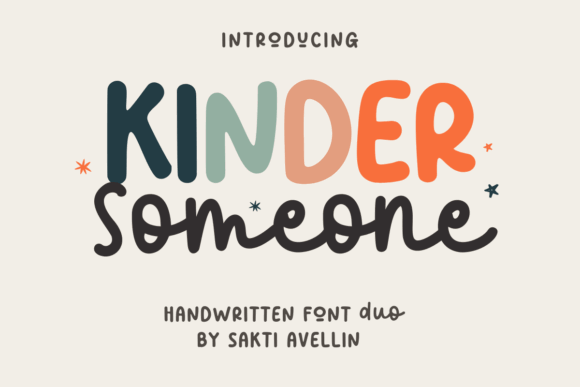
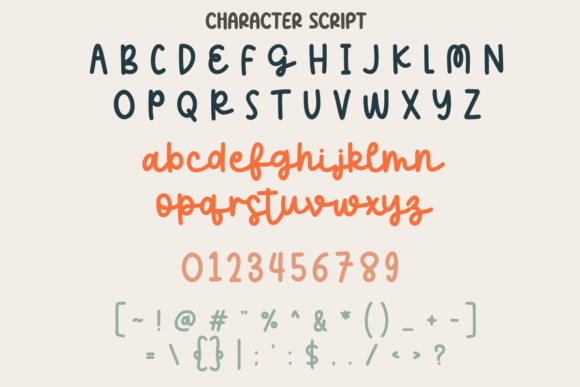
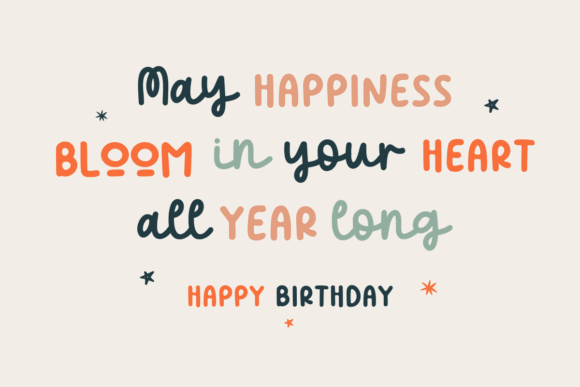
Kinder Someone Duo has the kind of friendly display personality that can make a logo feel approachable right away. It leans more playful than corporate, so I would look at it for creative studios, handmade shops, kids’ labels, casual lifestyle brands, or cheerful packaging.
The “duo” angle is useful for logos because it gives you more visual range. When a brand name needs contrast between the main word and a smaller supporting word, a paired font system can make the layout feel more intentional. This is especially helpful for badge-style logos, sticker labels, and small product brands that need a lot of charm without looking messy.
I would be careful with very serious professional services here. The style has warmth, but that same warmth may feel too informal for legal, finance, or technical brands.
Best for: playful logos, handmade shops, kids’ brands
Key features: display style, friendly lettering, duo font system
2. Vintage Serenade
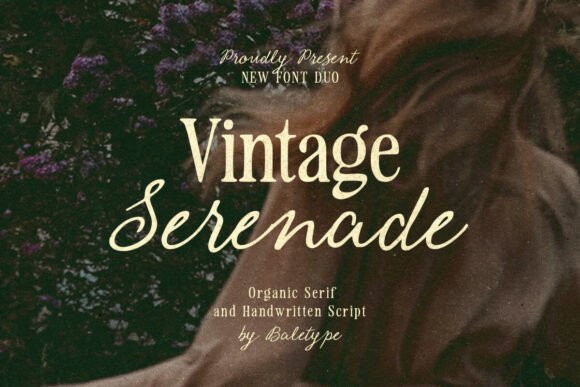
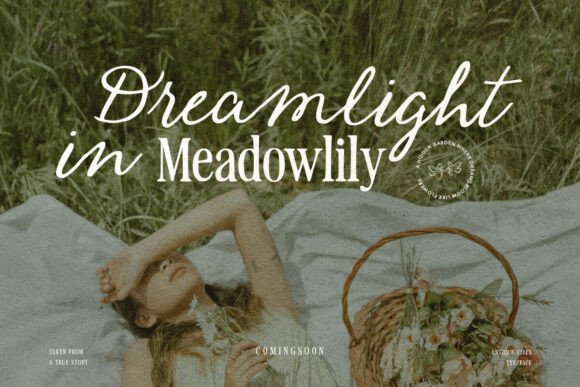
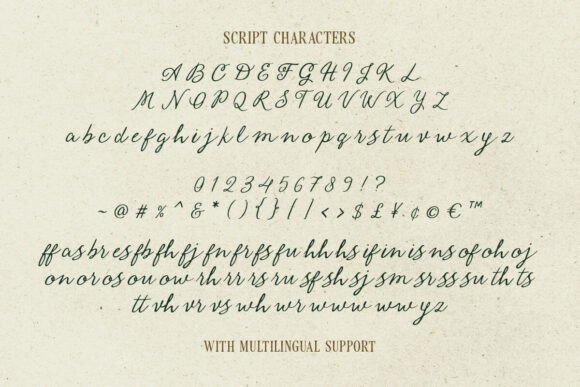
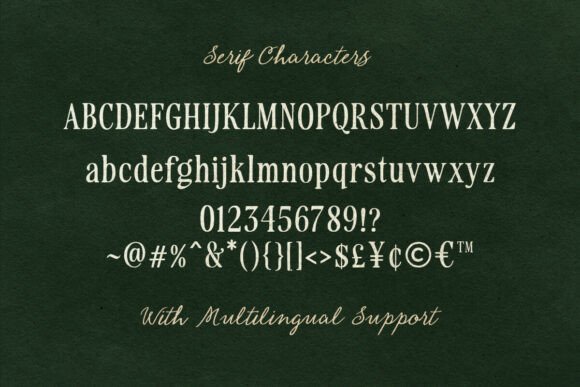
Vintage Serenade is a better fit when the logo needs nostalgia without feeling dusty. The name already points toward a vintage mood, and visually this kind of lettering style works nicely for coffee packaging, retro boutiques, handmade goods, barbershop-inspired branding, labels, and merch.
What I like about vintage lettering fonts is that they often carry built-in structure. They can sit inside badges, arcs, labels, and framed lockups without needing too many extra ornaments. That makes the logo process faster, especially if you are building a full brand kit around a wordmark.
The main thing to watch is detail. Vintage lettering can lose clarity if the brand name is long or if the logo has to be embroidered, cut, or printed small. Test the wordmark in black and white before adding texture.
Best for: vintage labels, coffee brands, retro merch
Key features: nostalgic tone, display lettering, logo-friendly mood
3. Maddison
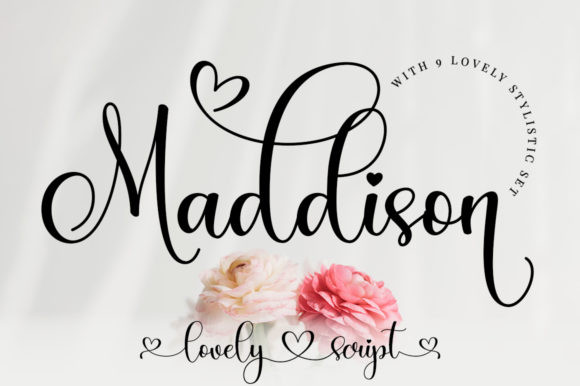
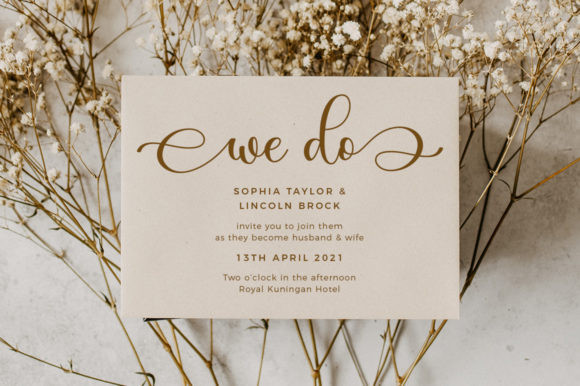
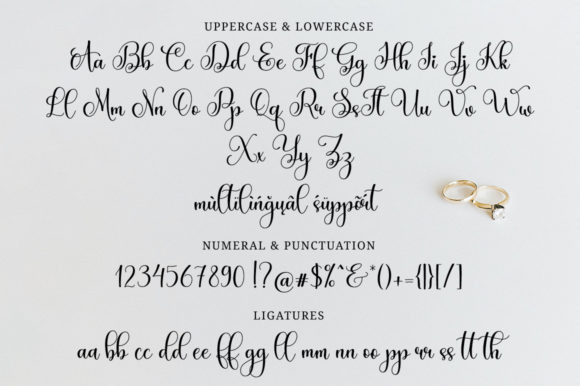
Maddison feels more polished and brandable than overly decorative. It has a modern lettering direction that can work for boutique logos, personal brands, beauty studios, lifestyle products, and elegant packaging.
This is the kind of font I would test when a client wants something “handwritten,” but not childish or rough. It can give a logo a personal tone while still feeling composed. That balance matters in beauty, wellness, coaching, photography, and boutique retail, where the brand needs warmth but still has to look trustworthy.
For logo use, I would pair Maddison with a quiet sans serif and keep the layout clean. Too many flourishes, icons, and taglines around a script-style logo can make it feel crowded fast.
Best for: boutique logos, beauty brands, personal branding
Key features: modern lettering, soft identity feel, polished tone
4. Designer
Designer is a straightforward pick for brands that want a creative look without going too ornamental. It has a name that fits the category, but more importantly, this style of lettering can suit studio branding, portfolio marks, design templates, editorial graphics, and modern small-business logos.
For professional logo design, I would use this kind of font when the brand wants to look creative but not overly romantic. Some lettering fonts lean hard into wedding, beauty, or feminine branding. Designer feels more open-ended, which makes it easier to adapt across different industries.
The danger is making the layout too generic. To make a logo feel more custom, adjust spacing, create a simple ligature-style moment, or pair the wordmark with a sharp symbol.
Best for: creative studios, portfolio logos, modern brands
Key features: clean lettering mood, adaptable style, display use
License: commercial use via Creative Fabrica access
5. Handlettering Fonts Collection
Handlettering Fonts Collection is the practical option in this list. Instead of one narrow style, a collection gives you more directions to explore before committing to a final logo mood.
That is useful when the brand concept is still forming. You can test a bold hand-lettered direction, a softer script direction, and a more casual drawn style without switching between completely unrelated sources. For logo exploration, that saves time and helps you compare tone more clearly.
I would use a collection like this during the early concept stage, then narrow it down to one strong direction. A logo still needs focus. Using too many lettering styles in the same identity will make the brand feel scattered.
Best for: logo concepts, brand exploration, style testing
Key features: multiple lettering styles, flexible direction, broad use
License: commercial use via Creative Fabrica access
6. Like Magic
Like Magic has a charming cursive personality, and its accessible listing confirms OTF and TTF-related tags. That makes it easier to consider for common design workflows, especially if you are moving between desktop software and lighter design tools.
The style is better for friendly branding than rigid corporate identity. I would look at it for stationery shops, handmade packaging, greeting card brands, Cricut-style projects, kids’ products, and casual lifestyle logos. It has a softer, more expressive voice.
Where I would be cautious is luxury branding. Some cursive fonts feel premium because of restraint and spacing; others feel sweet and decorative. Like Magic sits closer to the sweet side, so it needs the right niche.
Best for: cheerful brands, stationery logos, craft projects
Key features: cursive script, friendly curves, handmade feel
Formats: OTF, TTF
License: commercial use via Creative Fabrica access
7. Sweet Home
Sweet Home sounds exactly like the kind of font you would test for warm, cozy, handmade branding. It is a natural fit for home decor shops, candle labels, bakery marks, family-focused brands, and printable product logos.
For logo design, the value here is emotional tone. Some lettering fonts feel bold and promotional; others feel personal. Sweet Home belongs in the personal category. It can make a brand feel softer before the viewer even reads the tagline.
I would avoid using it for brands that need strong authority or technical precision. But for small shops, craft sellers, and home-based product businesses, that softness can become part of the brand’s appeal.
Best for: home decor, bakery logos, cozy branding
Key features: warm tone, handmade mood, casual lettering
License: commercial use via Creative Fabrica access
8. Vintage Market
Vintage Market is one of the more useful concepts for product-based logo design. Market-style lettering often works well in badges, labels, signs, packaging seals, farmer’s market brands, food products, and old-storefront-inspired identities.
This type of font can quickly give a logo a sense of place. It feels less like a generic digital wordmark and more like something printed on a paper bag, painted on wood, or stamped onto a label. That is useful when a brand wants a handmade, local, or heritage feeling.
The risk is overdoing the vintage treatment. A little distress, shadow, or badge framing can help, but too much makes the logo harder to reproduce.
Best for: food labels, market brands, vintage badges
Key features: retro display tone, product-label mood, bold presence
License: commercial use via Creative Fabrica access
9. Summer Marker
Summer Marker has a casual marker-style energy. It feels relaxed, bold, and slightly imperfect in a useful way. For logo design, that can work well for surf brands, summer products, youth-focused shops, apparel, stickers, posters, and social-first brands.
Marker fonts can be tricky because they often look better large than small. The texture and stroke movement are part of the appeal, but they can blur when reduced too far. I would test this kind of logo at avatar size before building the whole identity around it.
When it works, though, it gives a logo instant energy. It does not feel stiff. It feels made by a person.
Best for: apparel logos, summer brands, sticker designs
Key features: marker lettering, casual energy, bold handmade texture
License: commercial use via Creative Fabrica access
10. Cyprus Sunrise Duo
Cyprus Sunrise Duo is another useful option for logo designers who need contrast inside one brand system. Duo fonts are handy because they let you build a primary wordmark and supporting text without hunting for a second font that happens to match.
The mood here sounds bright, relaxed, and lifestyle-oriented. I would test it for boutique travel brands, beach products, handmade shops, wellness labels, or small creative businesses that need a softer identity.
For professional use, keep the composition simple. A duo font already creates contrast, so the logo usually does not need many additional effects. Good spacing and a clean icon will do more than extra decoration.
Best for: lifestyle logos, travel brands, soft packaging
Key features: duo font system, relaxed tone, brand contrast
License: commercial use via Creative Fabrica access
11. High Rise
High Rise gives the impression of a taller, more display-focused lettering style. This can be useful when a logo needs vertical presence, urban character, or a slightly editorial feel.
I would test it for coffee shops, creative agencies, apparel brands, barber-style logos, posters, and modern retail concepts. Taller lettering can feel confident without becoming heavy, especially if the strokes are clean enough to hold shape.
The thing to watch is spacing. Condensed or tall letterforms can become tight fast. For a logo, I would manually adjust kerning instead of accepting the default spacing. A few small spacing fixes can make the difference between “font typed out” and “real wordmark.”
Best for: urban logos, apparel brands, modern retail
Key features: tall display mood, strong wordmark shape, logo presence
License: commercial use via Creative Fabrica access
12. Vintage Postman
Vintage Postman has a nostalgic, printed-message feeling that could work well for stationery brands, coffee packaging, postal-inspired logos, journals, handmade paper shops, and retro product lines.
The appeal is not just “old style.” It is the feeling of something tactile. Lettering fonts with this mood often pair nicely with kraft paper, cream backgrounds, ink stamps, serif taglines, and simple line illustrations.
For logo design, I would keep the color palette restrained. Black, cream, brown, muted green, or deep red would make more sense than bright gradients. A vintage lettering font usually looks more convincing when the surrounding design does not fight the era.
Best for: stationery brands, retro packaging, paper goods
Key features: vintage mood, tactile feel, label-friendly lettering
License: commercial use via Creative Fabrica access
13. Beautiq
Beautiq is the kind of name I would expect in a beauty, fashion, boutique, or personal brand context. It likely belongs in the softer, more elegant side of logo lettering rather than the rough marker or vintage sign-painting side.
For logos, this kind of lettering font can work well when the brand name is short. Beauty and boutique logos often rely on spacing, restraint, and a little sophistication. If the font has too many swashes, trim the layout down instead of adding more.
A good use case would be a skincare label, lash studio, salon, wedding vendor, or feminine product brand. Pair it with a thin sans serif or small caps serif to keep the identity feeling clean.
Best for: beauty logos, boutique brands, feminine packaging
Key features: elegant tone, soft lettering, brandable script mood
License: commercial use via Creative Fabrica access
14. Hey Magnolia
Hey Magnolia feels warm, friendly, and slightly Southern-boutique in tone. It is a good candidate for lifestyle logos, handmade shops, florists, wedding vendors, home decor brands, or personal creative businesses.
The best thing about this kind of lettering style is approachability. It does not feel cold or overly designed. That can be useful when the brand needs to feel personal, especially for makers and service providers who sell through trust.
I would not overload it with watercolor florals, long taglines, and decorative frames all at once. A simple wordmark with one supporting line would usually feel cleaner.
Best for: florists, handmade shops, lifestyle logos
Key features: warm lettering, friendly tone, boutique personality
License: commercial use via Creative Fabrica access
15. Baby Boho
Baby Boho is clearly suited to soft, playful, family-focused branding. I would test it for baby boutiques, nursery decor shops, kids’ clothing labels, printable wall art, party brands, or gentle handmade products.
The challenge with baby and boho fonts is avoiding a logo that feels too temporary. A cute font can get attention, but a brand identity needs to age well. Use this kind of lettering font with clean spacing and a calm color palette so it does not become too busy.
For Etsy-style brands and small product shops, this could be a very practical choice. It gives the logo personality quickly.
Best for: baby brands, nursery decor, kids’ boutiques
Key features: soft boho tone, playful lettering, gentle style
License: commercial use via Creative Fabrica access
16. Roselya Script Font
Roselya Script Font is a more classic script-style option for logo design. It fits the space between romantic branding and polished small-business identity.
I would consider it for wedding vendors, photographers, beauty studios, invitation designers, florists, and boutique packaging. The script direction gives it elegance, but the logo will still need careful testing. Script fonts can look beautiful in a sample word and awkward with a real brand name that has difficult letter combinations.
Before choosing it, type the actual business name in uppercase and lowercase variations. Pay close attention to letters like r, s, e, o, and y, because script connections can change the whole rhythm of the word.
Best for: wedding brands, photography logos, elegant boutiques
Key features: script lettering, romantic tone, polished identity feel
License: commercial use via Creative Fabrica access
17. Kayla
Kayla is a simple, friendly lettering option that can work for personal brands, handmade shops, soft product labels, and casual boutique logos. It feels less dramatic than some script fonts, which can actually be a strength.
Not every logo needs to shout. Sometimes a quieter lettering font gives the brand more room to breathe, especially when the identity includes photography, product mockups, packaging, and social graphics.
I would use Kayla when the brand needs warmth without too much decoration. It can pair nicely with a clean sans serif tagline, minimal icon, or soft neutral palette.
Best for: personal brands, simple logos, handmade labels
Key features: friendly lettering, soft tone, easygoing brand feel
License: commercial use via Creative Fabrica access
Read More: Beyond logos, selecting the ideal typeface is paramount for all sorts of projects, and if you're working with crafting machines, you'll find great options among the 26 Best Handwritten Fonts for Vinyl Sticker Labels.
What Makes a Lettering Font Good for Logo Design
A strong logo lettering font usually has three things: clear structure, memorable shapes, and enough flexibility for real branding work.
The first one matters most. If the font is beautiful but the name becomes unreadable at small sizes, it will cause problems later. Logos often shrink into favicons, stickers, packaging seals, Instagram avatars, and watermark marks. A font with open counters, recognizable letterforms, and controlled spacing usually holds up better.
The second thing is personality. Lettering fonts should not feel like plain system fonts with a little curve added. Good lettering has rhythm: maybe a bouncy baseline, a confident brush stroke, vintage weight, soft script connections, or hand-drawn irregularity.
The third thing is flexibility. For logo design, I like fonts that leave room for pairing. A lettering wordmark often needs a clean sans serif, small uppercase tagline, badge shape, or monogram next to it. If the lettering font is already too loud, everything around it has to fight for space.
How to Pick the Right Lettering Font for a Logo
Start with the brand name, not the font preview. A font can look excellent in a specimen image and still fail with your actual word. Some names have awkward double letters, tall ascenders, repeated curves, or short letter combinations that change the balance completely.
Test the logo in black first. Color can hide weak typography for a while, but a good wordmark should still have structure without gradients, textures, shadows, or mockups.
Check small sizes early. Put the logo into a mock Instagram profile image, a business card corner, a website header, and a tiny packaging label. If the name collapses, the font may be better for headlines than logos.
Think about pairing. A lettering logo usually needs a supporting font for taglines, menus, labels, or website text. Clean sans serifs, quiet serifs, and small caps often pair better than another decorative typeface.
Finally, do not be afraid to customize. Adjust spacing, simplify swashes, convert to outlines, refine one awkward connection, or create a small custom ligature. That is often what turns a nice font into a professional-looking logo.
Which Lettering Font Should You Choose for Logo Design?
The best lettering fonts for professional logo design are not always the most decorative ones. They are the fonts that give a brand a clear voice and still hold up when the logo leaves the mockup.
For playful brands, Kinder Someone Duo, Baby Boho, and Like Magic are easier to warm up to. For vintage product identity, Vintage Serenade, Vintage Market, and Vintage Postman bring stronger nostalgic structure. For boutique and elegant branding, Maddison, Beautiq, Roselya Script Font, Hey Magnolia, and Kayla are better places to start.
A logo font should feel memorable, but it should also be usable. That balance is where good lettering earns its place.
u003cstrongu003eWhat are lettering fonts in logo design?u003c/strongu003e
Lettering fonts are typefaces that mimic hand-drawn, brush, marker, script, or custom letterforms. In logo design, they help a wordmark feel more personal and less generic than a basic system font.
u003cstrongu003eAre lettering fonts good for professional logos?u003c/strongu003e
Yes, lettering fonts can work well for professional logos when they are readable, properly spaced, and matched to the brand’s tone. They are strongest for boutique, creative, handmade, lifestyle, food, beauty, wedding, and product-based brands.
u003cstrongu003eWhat should I check before using a lettering font for a logo?u003c/strongu003e
Check readability at small sizes, spacing between letters, alternate characters, licensing, and how the font works in one color. A logo font should still look clear on business cards, social icons, packaging, and website headers.